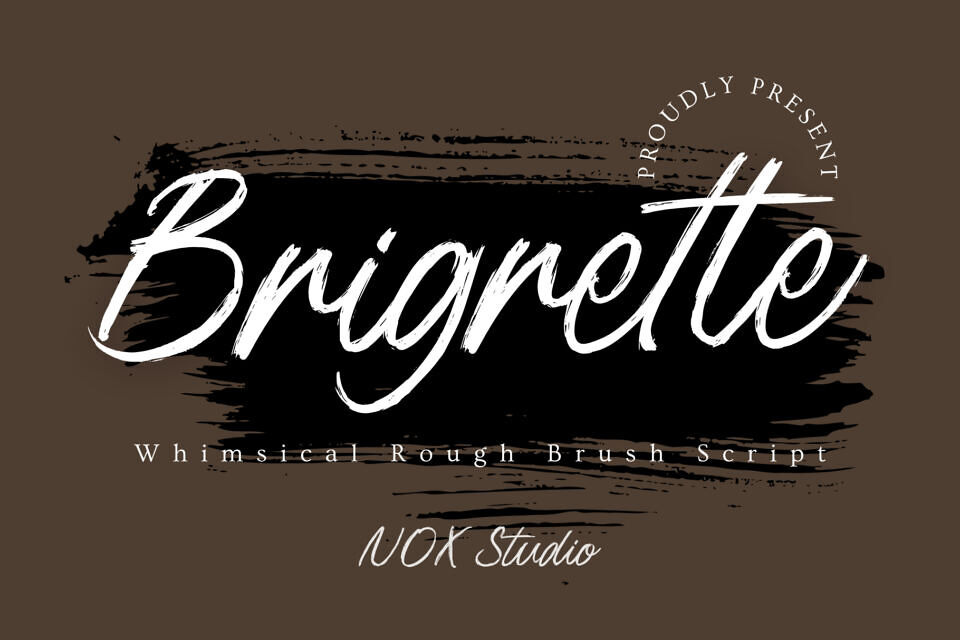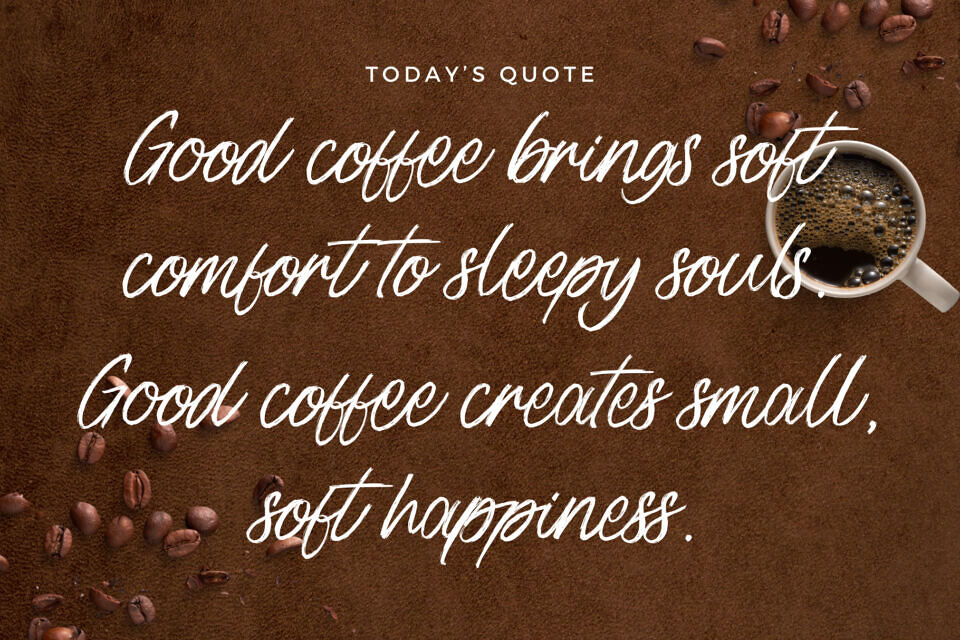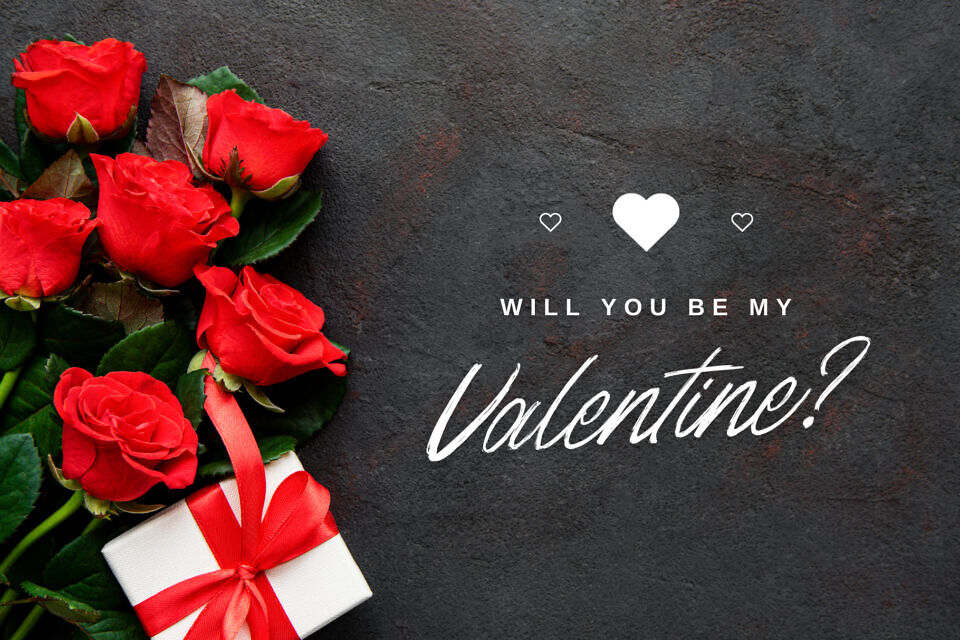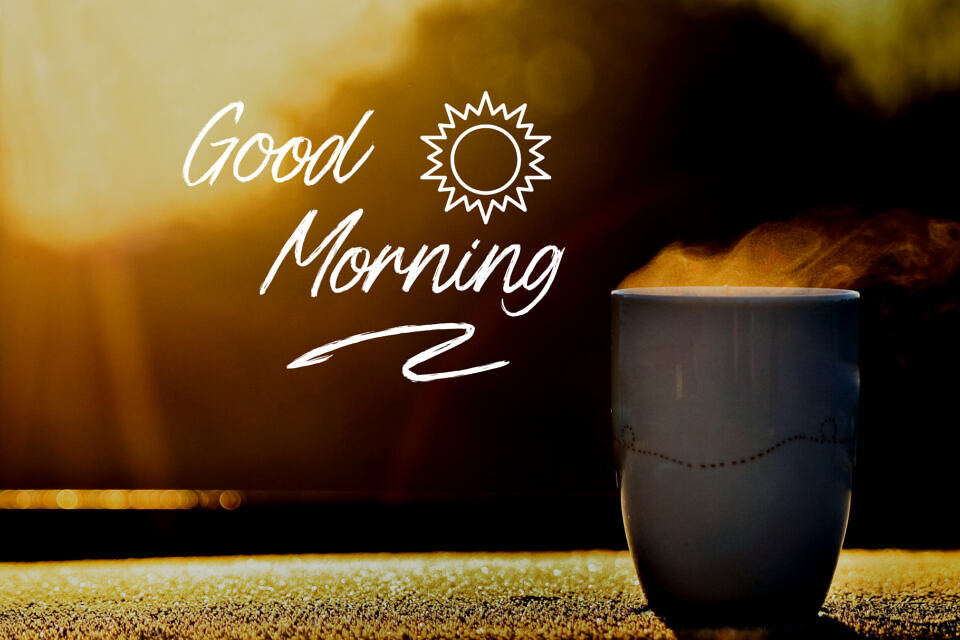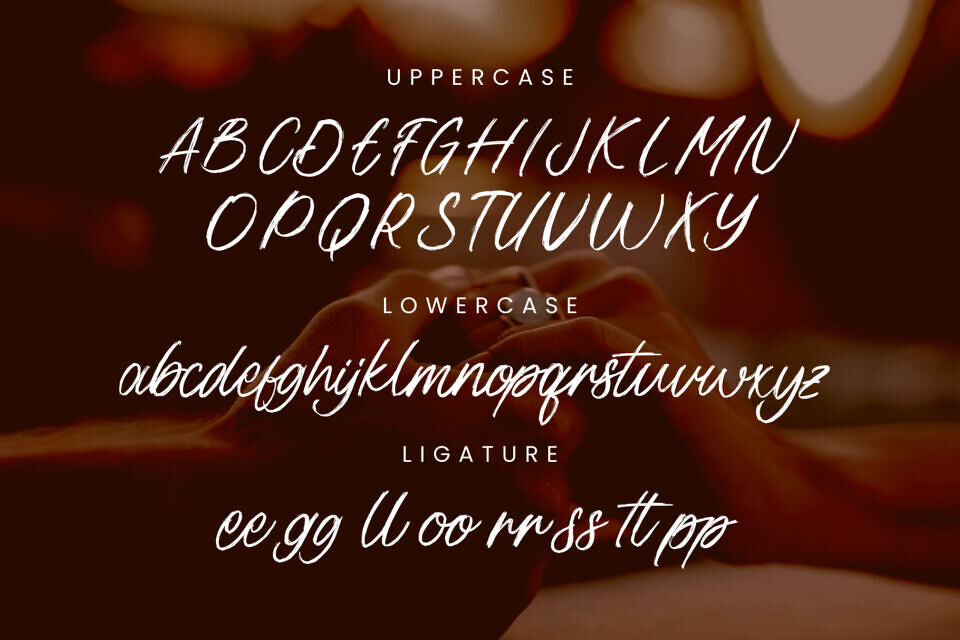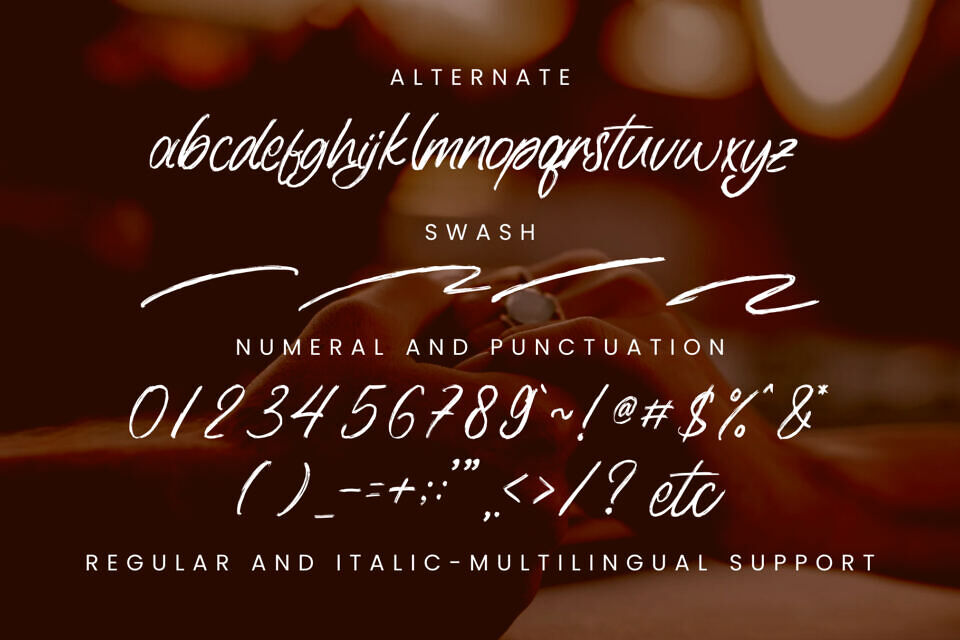
Unleash the wild and energetic spirit of Brigrette, a Whimsical Rough Brush Script that perfectly captures the spontaneity of real hand-painted lettering. With its fast, sweeping strokes and deliberately textured edges set against a dramatic brush-stroke background, this font exudes confidence and raw artistic flair.
The quick, free-flowing style makes it an excellent choice for dynamic social media graphics, impactful branding for creative businesses, modern t-shirt designs, music album covers, and any project that needs a touch of gritty, expressive, and unforgettable handwritten typography.